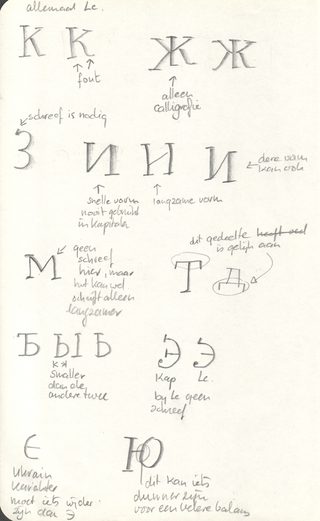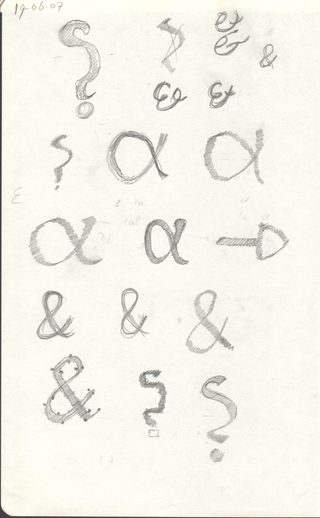
Sirba, Nicolien van der Keur’s response to dictionary typefaces
Over a digital cup of coffee we talked with Nicolien about her history of making, her transition to font student then professional type designer, and her future plans. After reading this interview we hope you’ll read your home dictionary with a more critical eye and greater respect as well.
Let’s start with the basics. Can you tell us a bit about yourself, your background as a designer, your design studio, and in what sort of work you specialise?
My education is in so-called old school graphic design. At the time when I was a student in art school, no computers were available. Also for nostalgic reasons the movie “Graphic Means” was a feast of recognition. It brought back many memories, such as specifying which typefaces the typesetter needed to use and in which point sizes, for which the text had to be calculated manually. I especially enjoyed the sketching of the layout by hand. That was a very relaxing job. You could see what a page would look like when it was finally printed.
In 1990 I started my own studio. It was the right decision for me. I could follow my own intuition in designing so that it suited my clients and me. My first assignments were about the design of magazines, but finally the work changed more toward book design, complex study books, and psychological tests for children that included a lot of forms. The best part of the design is the typography part, to find out what typeface suits best to the subject and its readers. How good the font will behave with headlines, subheads, body text, and all other components that the author needs to express his thoughts. I always say that I am not mainly a designer, but more of a typographic translator of the author’s text into a manageable book for the reader.
Nicolien’s early days in her office, back in 1992. Photo: Chris Hoefsmit
Can you describe your path for us? Why were you attracted to type design?
I was 29 before I started my education in art school and my classes were during the evening hours. I could not figure out what I really wanted to do the rest of my life. You could say I am a late bloomer.
In art school I liked the lessons about type and typography best. The teacher, Joost van de Woestijne, was amazing. He inspired me to appreciate the shapes of the characters and subconsciously I knew this was what I would like doing most. Working as a graphic designer, the typography part was the best part of my job.
The demands of having my own studio, the workload, and daily life kept me from exploring other possibilities with typography, and I felt a growing need to find out more about the design of the typefaces I used: What was the inspiration for the designer? How were the typefaces made? And what was their historic background? When I was 52 I was determined to learn more about the history and design of type, so I took a year off from my studio. Thanks to the Internet I was able to find the MA program in Reading. I chose the MA program not only for the design part, but also for the serious research part as well.
You went back to school in 2007 and graduated with a Master of Arts in Type Design (MATD) from Reading University in the UK. Tell us a little about the programme, the processes you went through, and the instructors you had.
For my husband and me, it was a big decision to abandon my life in the Netherlands for a year and move to England. I had to go alone because my husband has his work in the Netherlands which he could not quit for a year. It was an adventure. We were determined to make the best of it and we did! The MA program in Reading turned out to suit me best because of the combination of research and the practical experience. It was an amazing year. The programme involved a lot of lectures by the amazing Michael Twyman and James Mosley, as well as guest lecturers. The research part was a challenge for me. It was unknown territory but it was fascinating; one reason being the ability to look and touch the original typographic source material. Also great teachers like Gerry Leonidas, Dr Gerard Unger, and Fiona Ross inspired me to understand type and typography better than I ever had done. I developed better typography skills and designed a typeface — thanks to them, my classmates, and much hard work.
Drawing in London during her studies at the Department of Typography and Graphic Communication, University of Reading. Photo: Norbert Vitha
A session of stone carving.
Considering that you live in the Netherlands, why did you choose to study in England instead of studying at KABK in The Netherlands? Wouldn’t that have been much easier in practical terms?
The main reasons to go to Reading were the interesting programme they offered and the fact that it forced me to make a real commitment to study. If I would’ve stayed at home and went to the KABK in The Hague, I would always give priority to my studio clients. I still had a few clients while in England, but the periodical jobs that consume a lot of time were done by someone else. This arrangement was not something I would have done if I had not attended Reading.
At Reading you developed an interest in typefaces for dictionaries and other complex, high-density text environments. What led you onto that path?
My professional career as a graphic designer led me to design complex forms and complex high-density study books. So in a way the path started before the Master’s program. The publishers I worked for at that time had a department for books and also a department for psychological tests. These tests have forms that need to be filled in by the examiners of the tests. Most of the time the books I designed had many tables in it; some of them simple and some more complex. I think because they were happy with me as a designer, they introduced me to the department that developed the psychological tests.
The monospaced version will be digital, but also analogue. I would like to use this font on an actual typewriter. Preparations are therefore in progress! It will be part of research I am doing on typewriter fonts. Besides that, I think of it as a challenge to see a typeface made in the twenty-first century in use on a machine from the twentieth century.